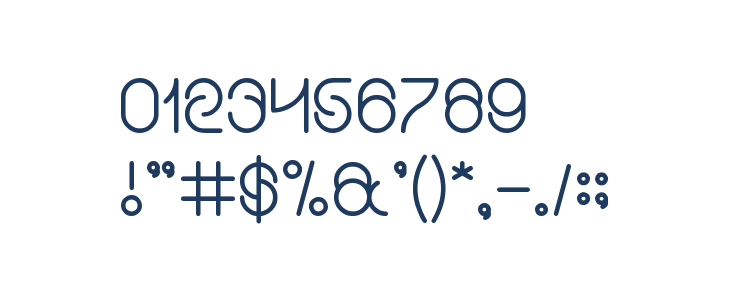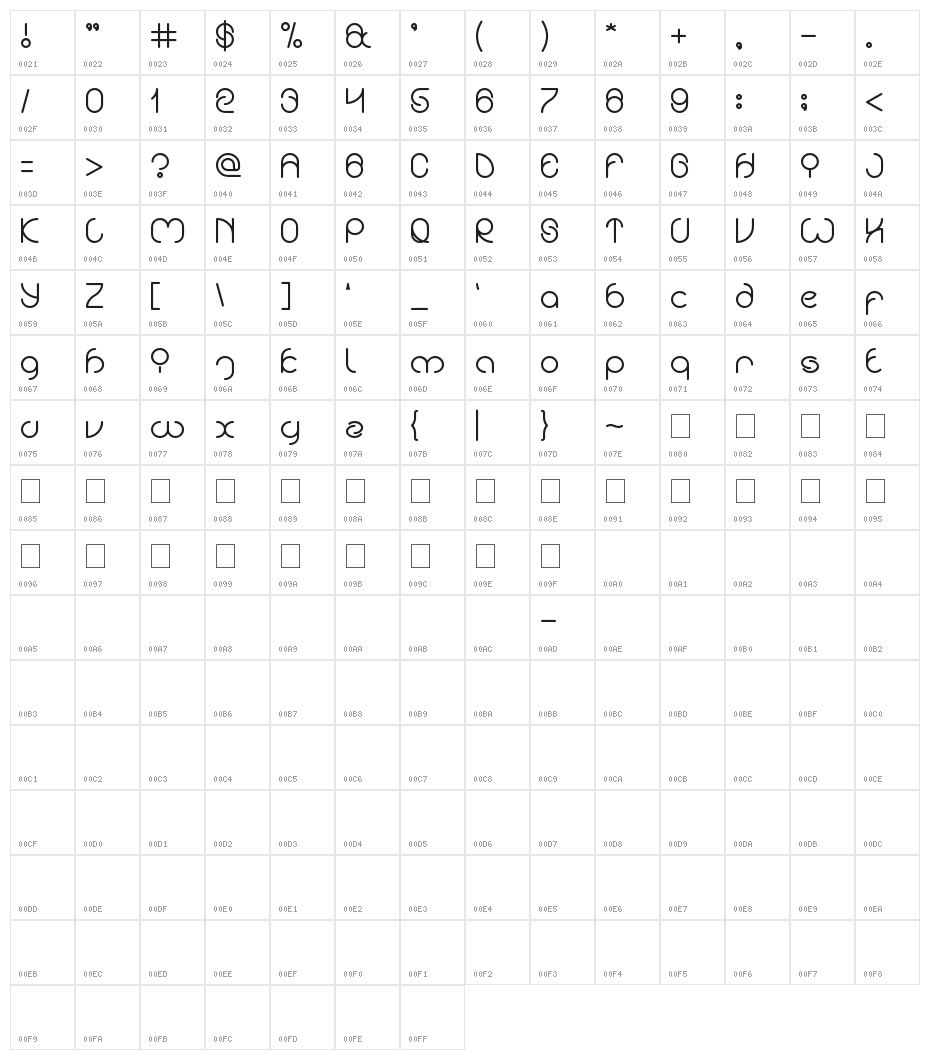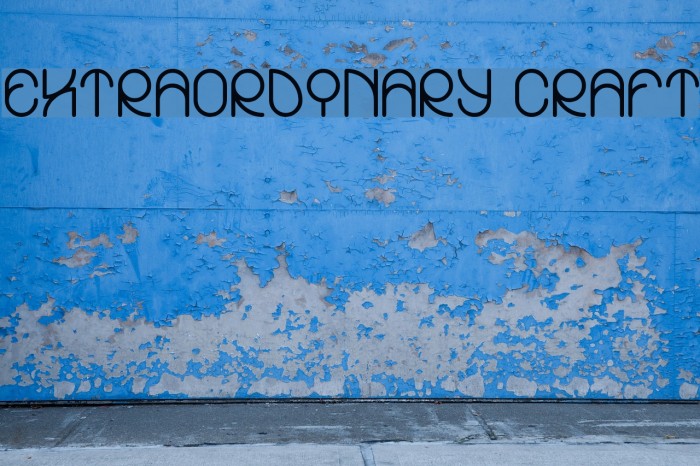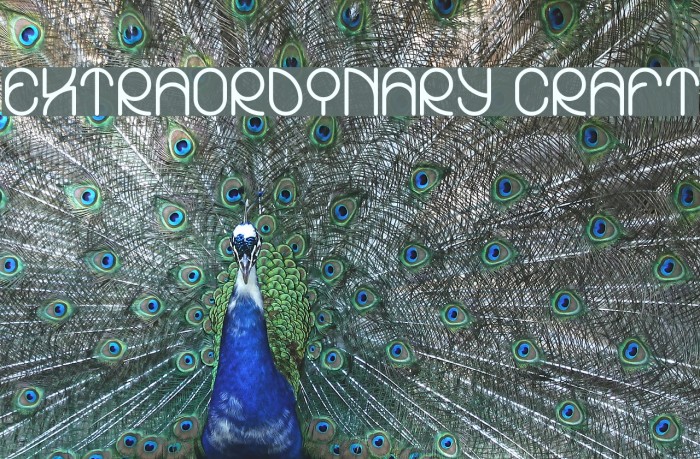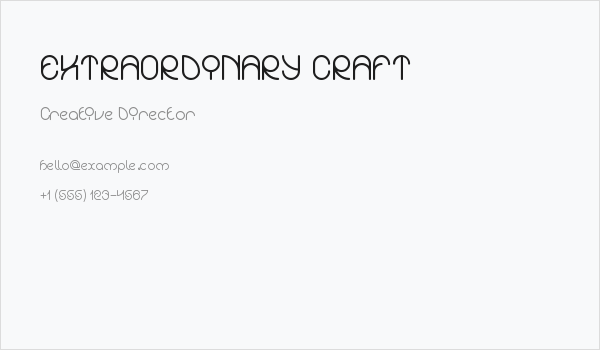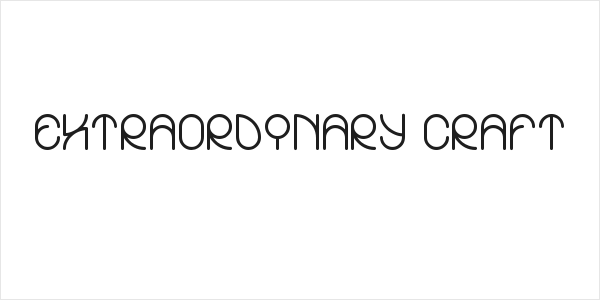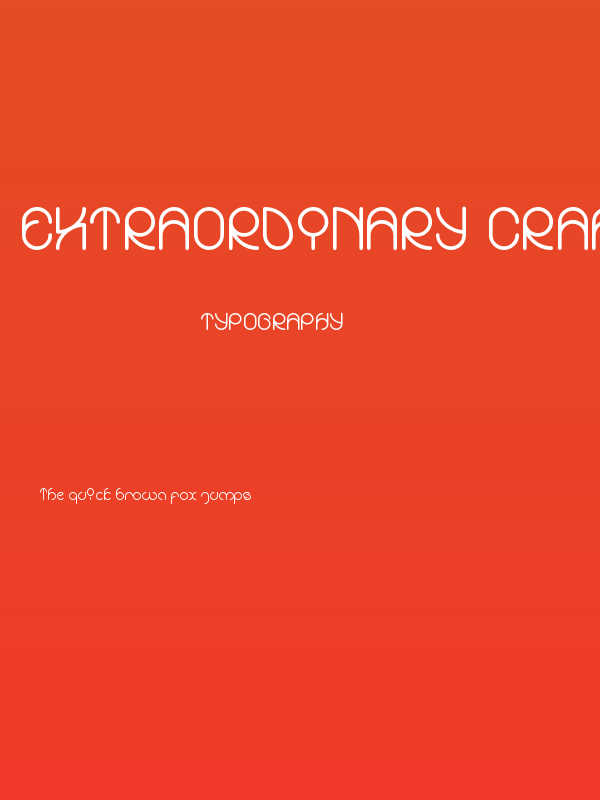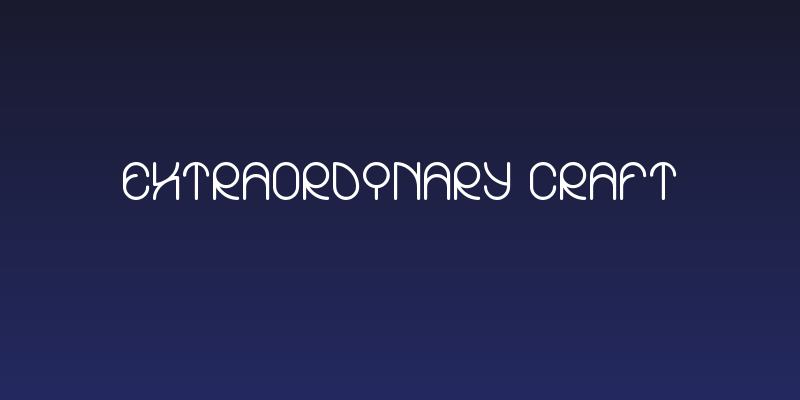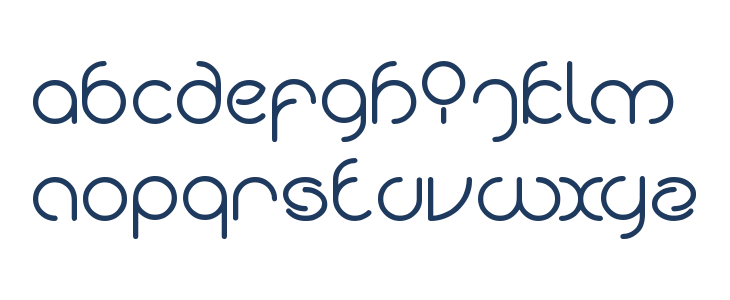
EXTRAORDINARY CRAFT Font
EXTRAORDINARY CRAFT Description
This font features a unique and modern design with a futuristic flair. The characters are composed of smooth, continuous lines that form rounded shapes, giving it a sleek and contemporary appearance. The uppercase and lowercase letters maintain a consistent style, with a focus on circular and semi-circular forms. Numbers and special characters are designed to match the overall aesthetic, providing a cohesive look across all glyphs. The font's distinctive style makes it stand out, ideal for projects that require a modern and innovative touch.
| Overall Style | Modern, Futuristic |
| Use Case | Headlines, Logos, Digital Media |
| Proposed Projects | Ideal for tech branding, futuristic designs, digital media, and innovative product packaging. |